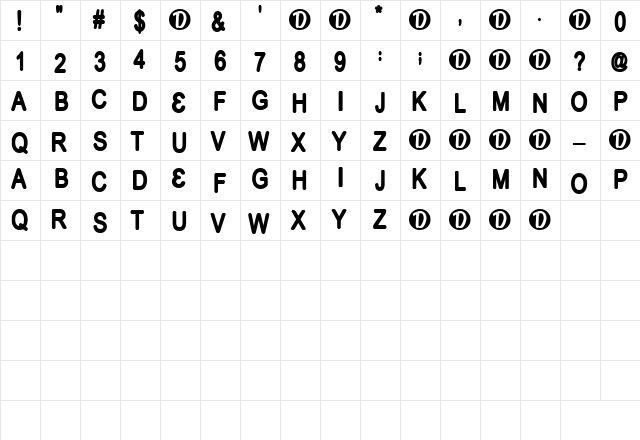
Pruneface Regular
Design Context for Pruneface Typeface
Pruneface is a composed and adaptable typeface that performs quietly and consistently across a wide range of design contexts.